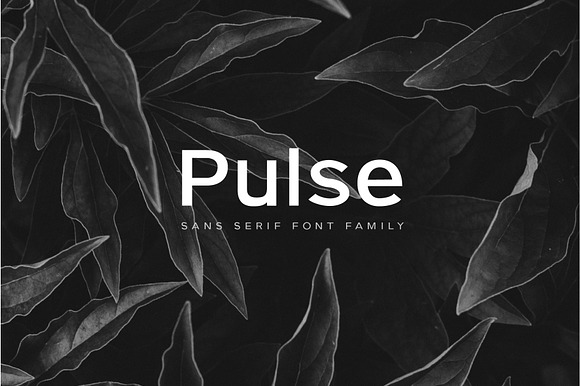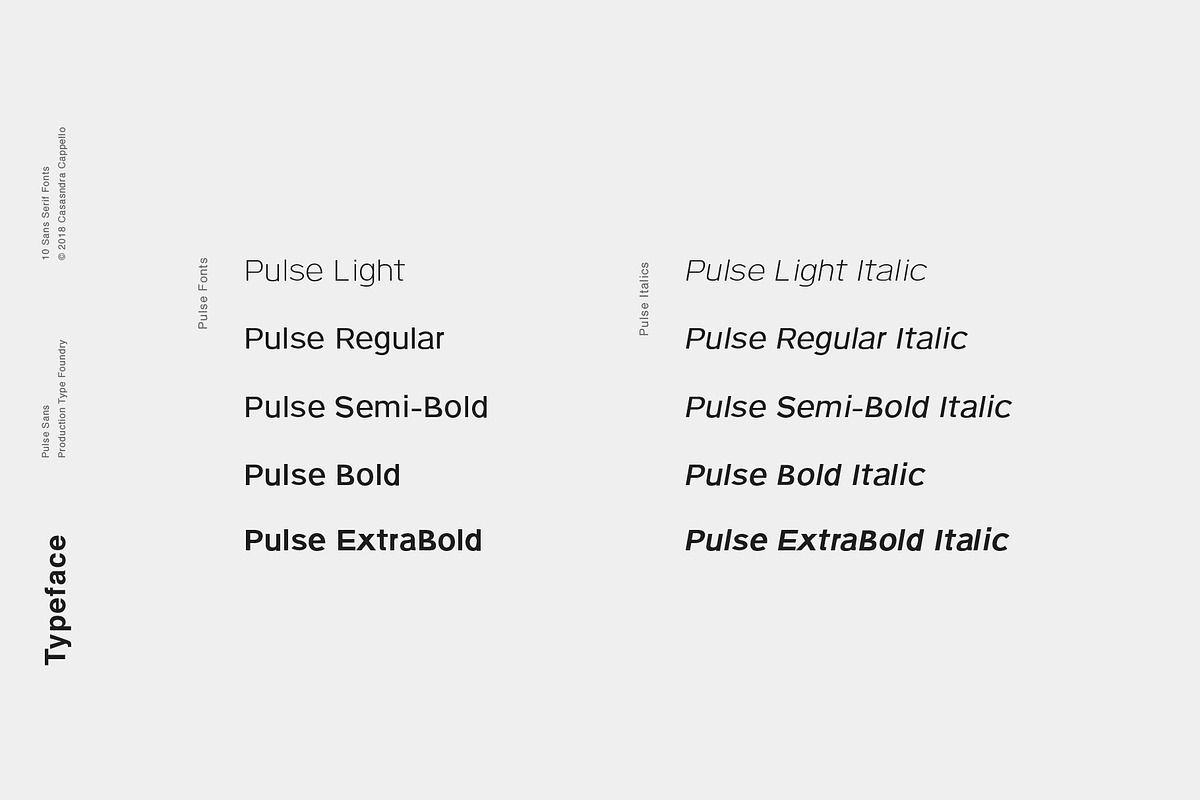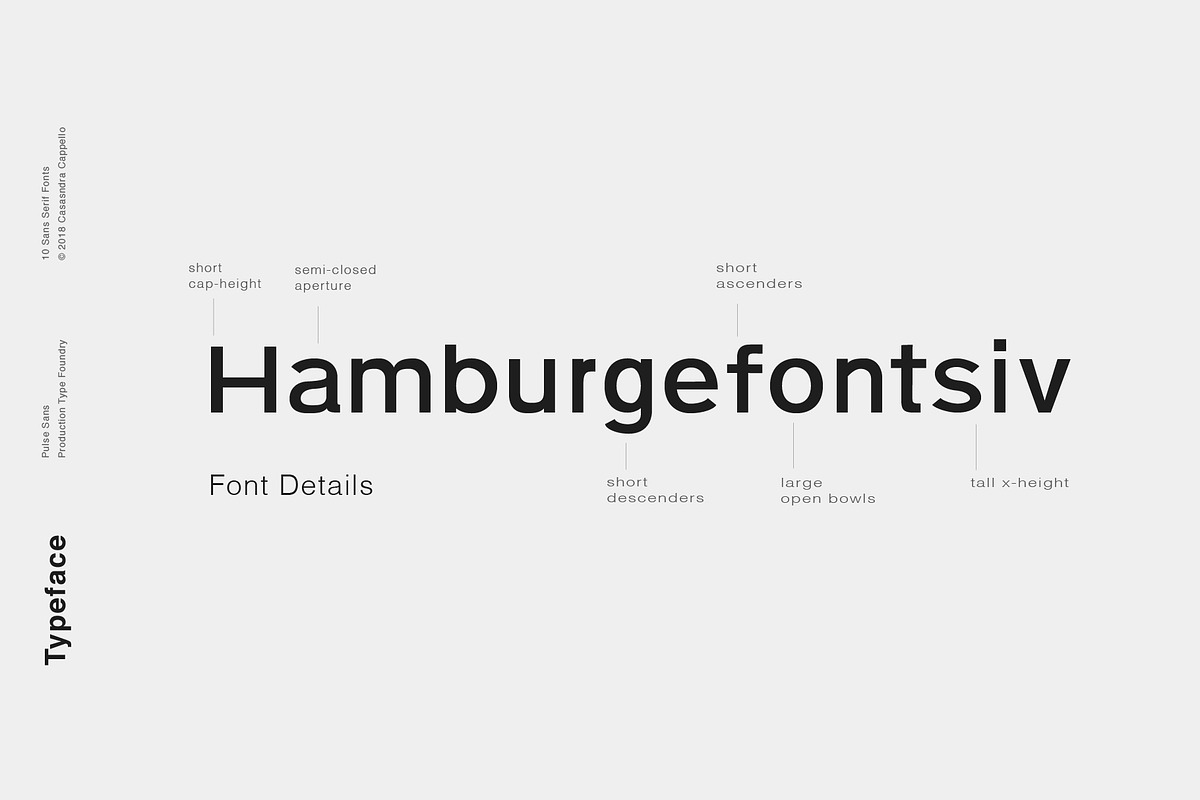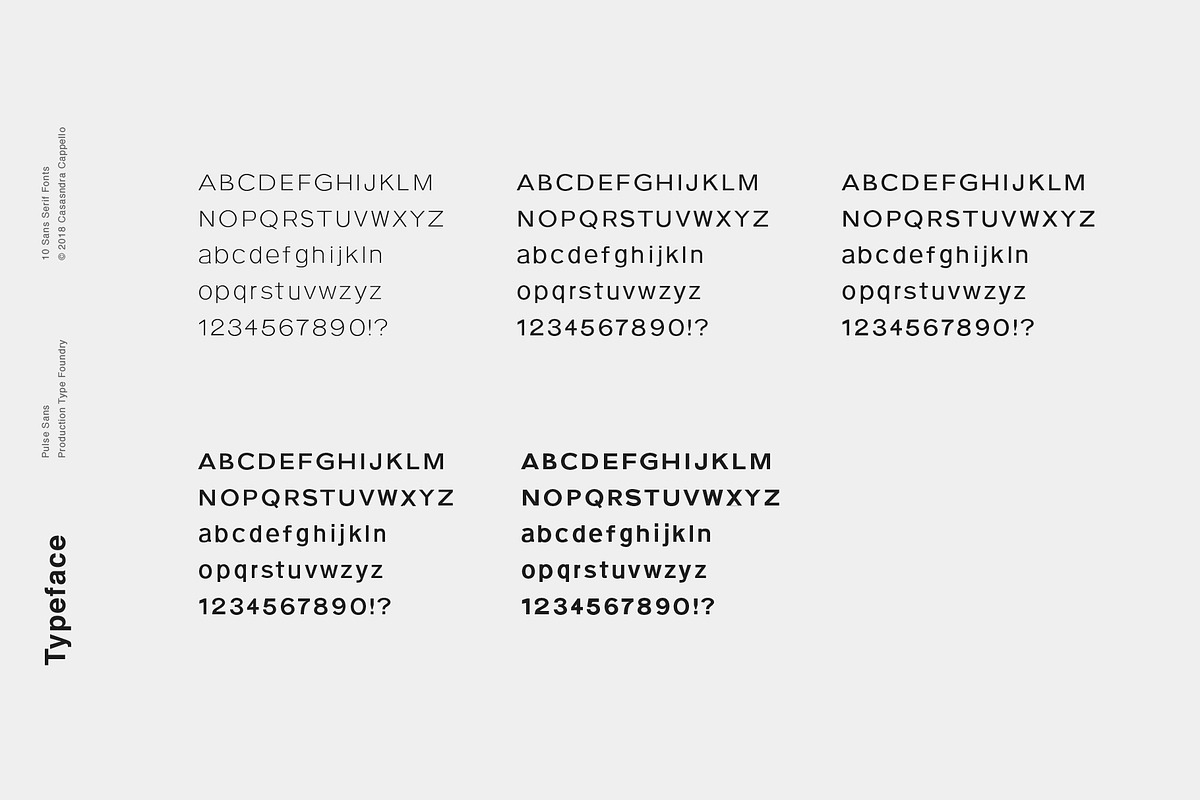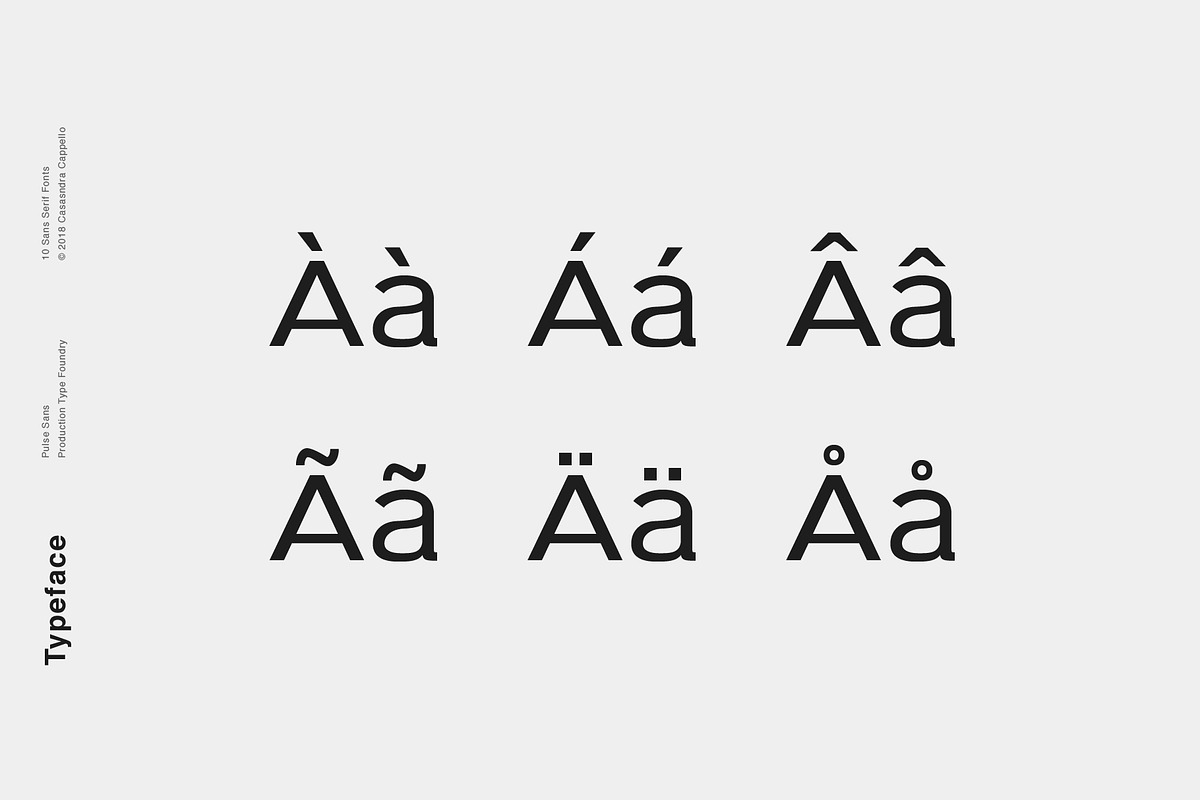
Pulse - A Modern Sans-Serif Typeface
Pulse is a minimal, classic sans serif typeface. It has a little bit of personality and can be used for both headers and body copy. This font family includes all Latin characters (including accents), numbers, special characters, and punctuation.
- Pulse includes ten fonts in OTF format: Five weights and five italics.
Pulse - A Modern Sans-Serif Typeface by Cassandra Cappello fits naturally into Branding, posters, packaging, typography.